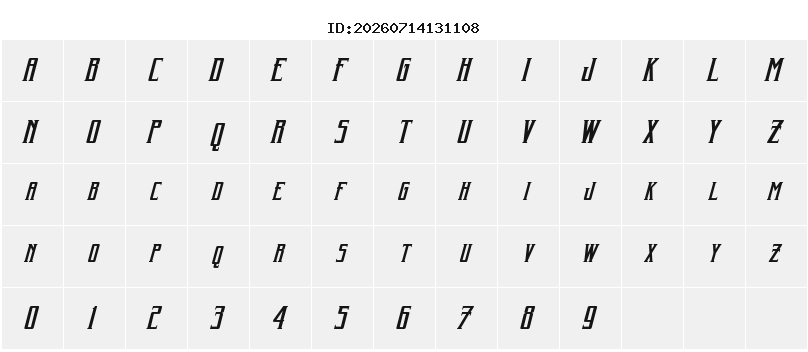
Harker Preview
• Font Name: Harker
• Full Font Name: Harker Italic
• Designer: Neale Davidson
• Manufacturer: Pixel Sagas
About Harker.otf
Harker.otf is a modern, elegant sans-serif font designed for ultimate readability and visual harmony. Perfect for branding, headlines, web design, and print materials.